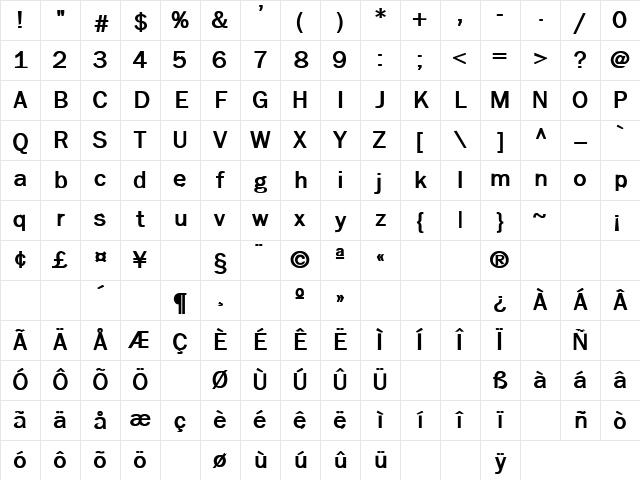
Breakdown 4 Bold
Design Context for Breakdown 4
Breakdown 4 is a composed and adaptable typeface that performs quietly and consistently across a wide range of design contexts. Its bold stroke weight gives it real presence on the page.
Pro Tip: Use Breakdown 4 in both headline and body roles to test its range before committing to a single application.